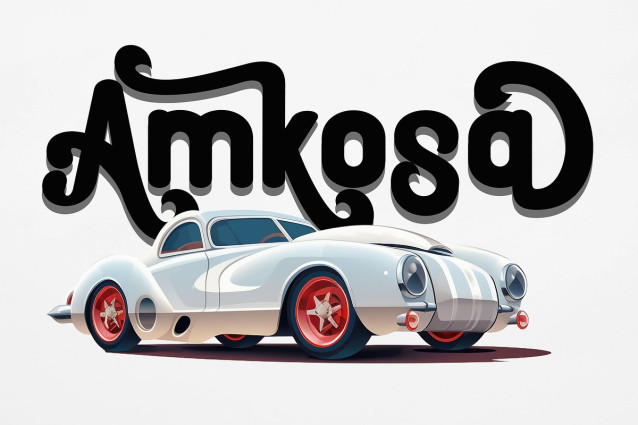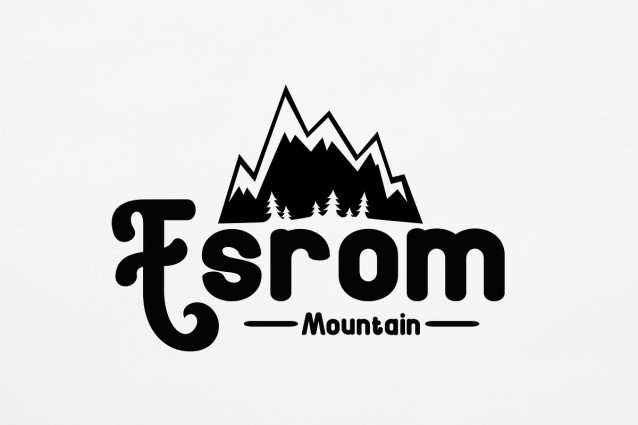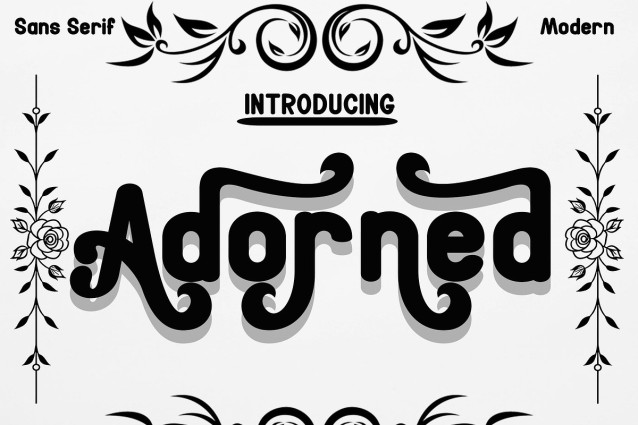
Adorned Font
Adorned Font is a simple, minimalist and neat sans serif font. It can be easily adapted to a very large range of projects, such as advertising, titles, blogs, logos, branding, invitations, business cards and more! So add it to your creative ideas and watch how it makes it stand out!